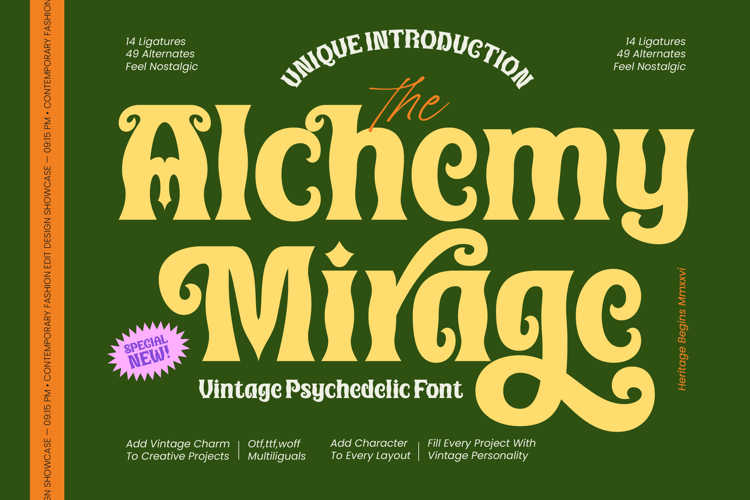
Alchemy Mirage Vintage Psychedelic Font
Alchemy Mirage – Vintage Psychedelic Font
Experience the mesmerizing allure of Alchemy Mirage – Vintage Psychedelic Font, a typeface that masterfully blends retro aesthetics with contemporary flair. This display font captures the essence of the 1970s psychedelic era, offering fluid curves and bold silhouettes that command attention instantly. Its high-contrast design and liquid-like forms evoke a sense of nostalgia while maintaining the clean lines required for modern professional projects. Whether you are aiming for a whimsical vibe or a sophisticated vintage look, Alchemy Mirage – Vintage Psychedelic Font provides the visual impact necessary to stand out in a crowded market.
Harness the power of unmatched versatility through an extensive collection of 14 unique ligatures and 49 stylistic alternates. These features allow designers to craft bespoke typography that feels custom-made for every layout. With its extensive multilingual support, Alchemy Mirage – Vintage Psychedelic Font adapts seamlessly across global markets, making it incredibly versatile for international projects. The inclusion of various OpenType features ensures that your creative vision is never limited, providing the tools to create dynamic compositions that resonate with audiences worldwide.